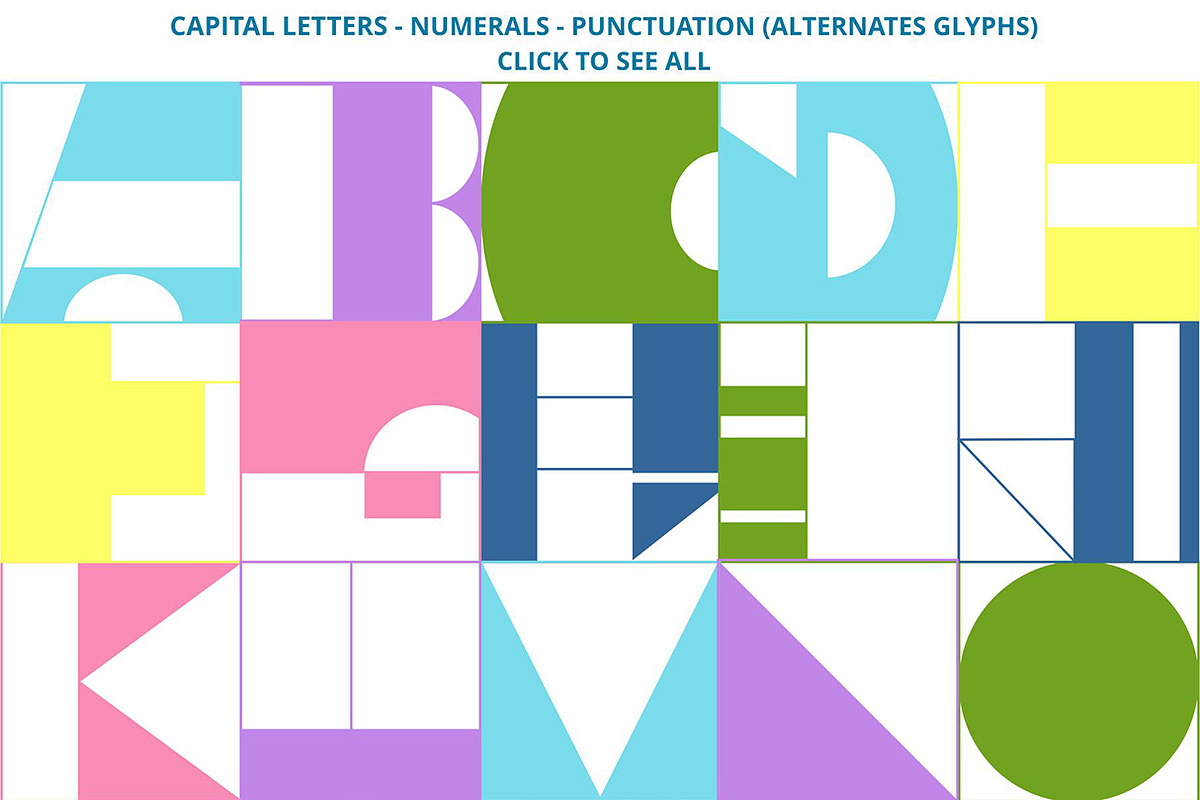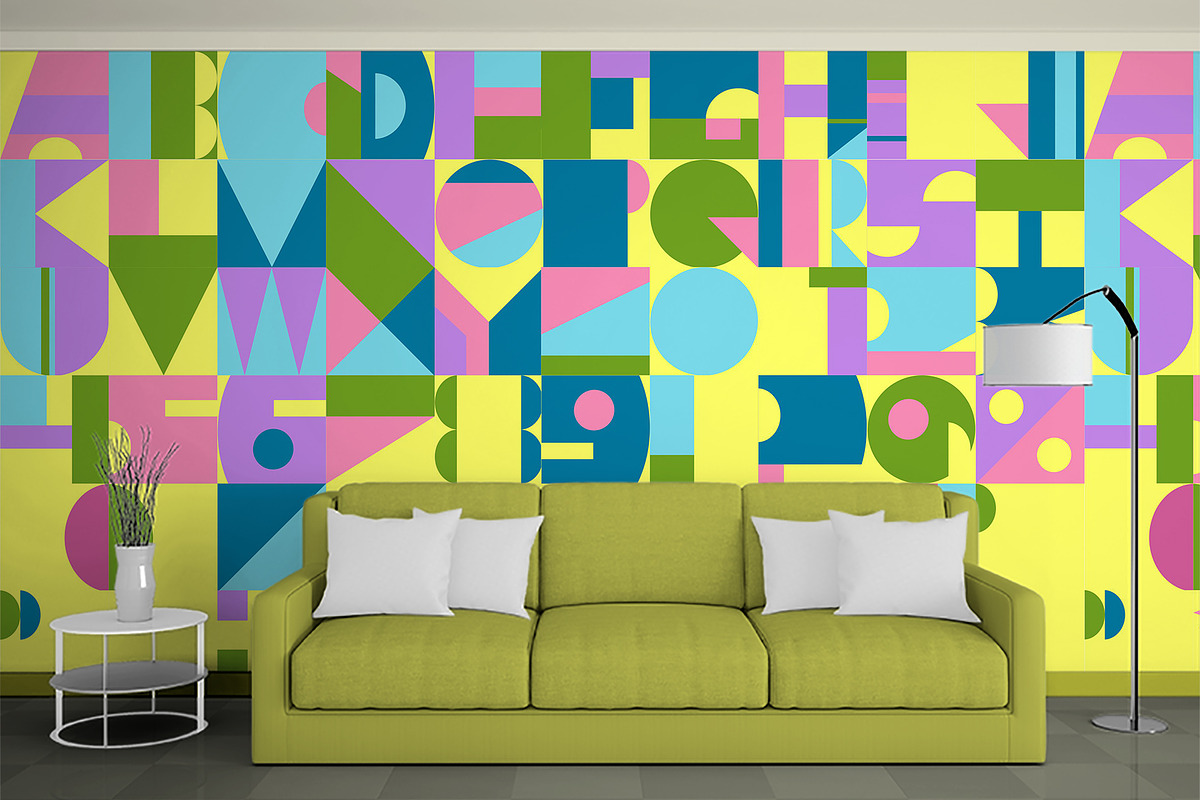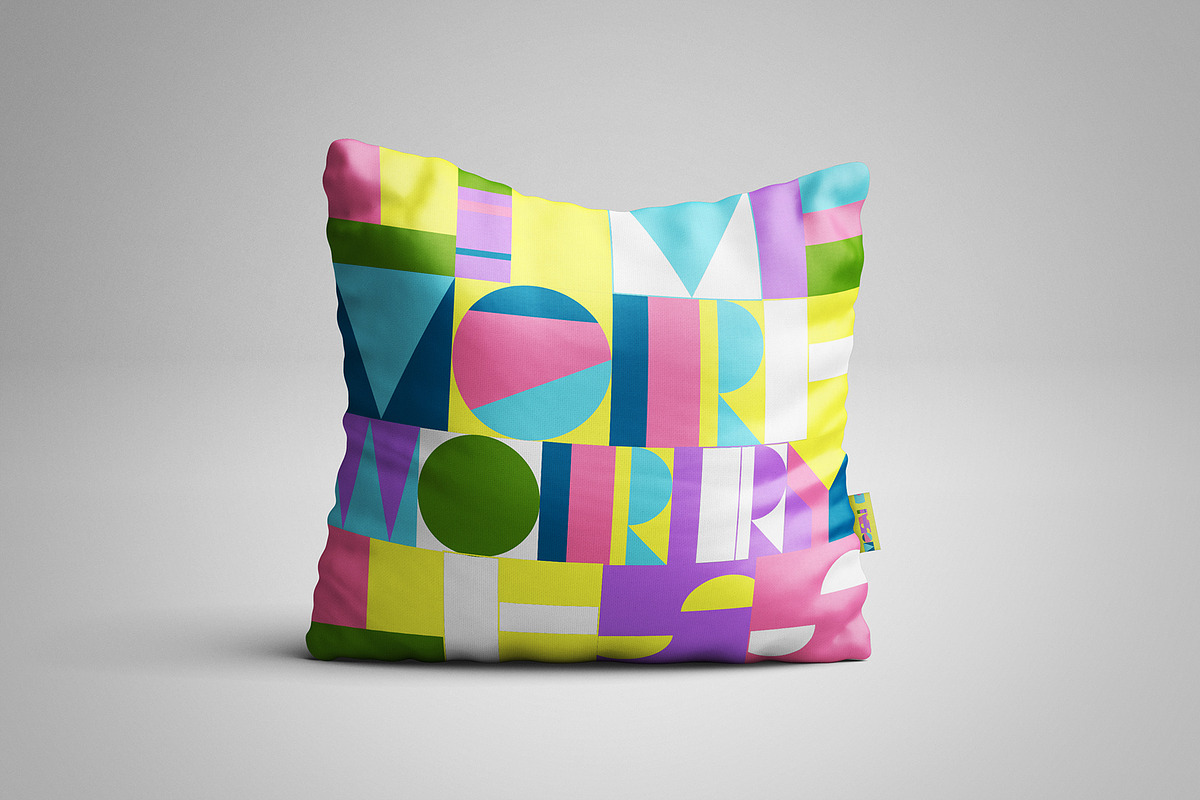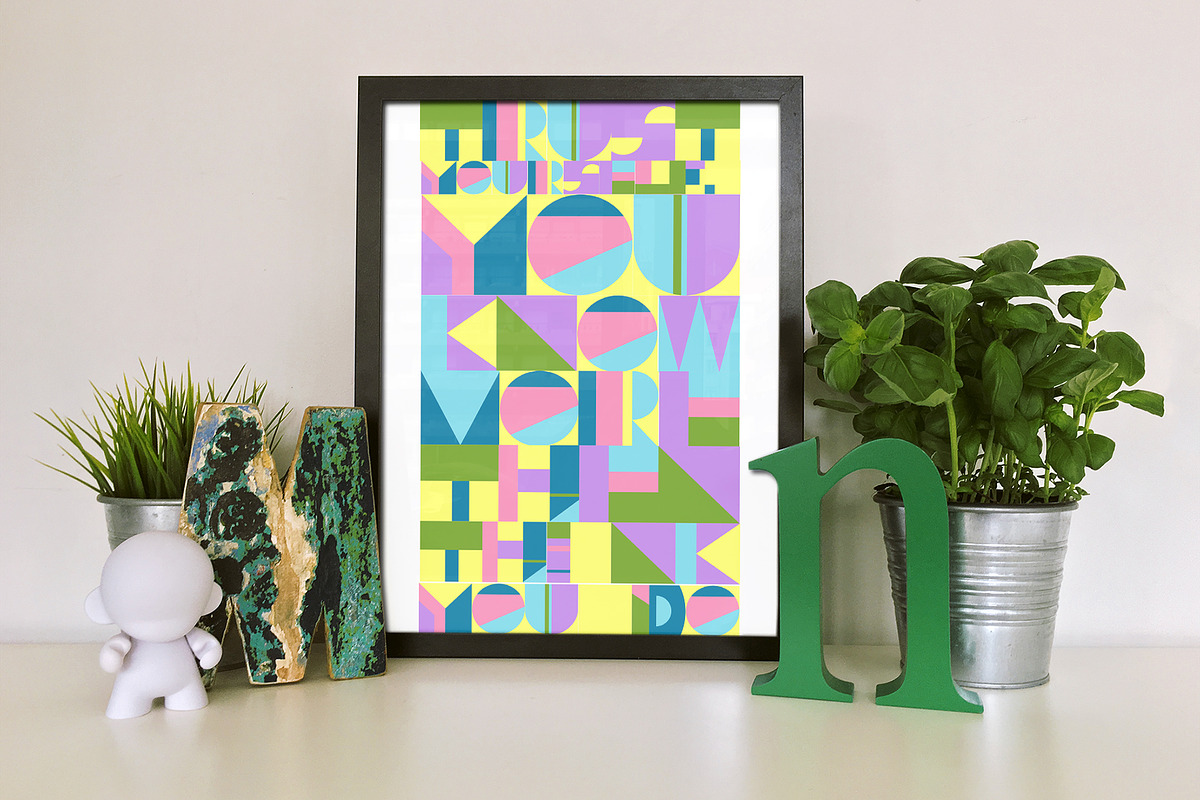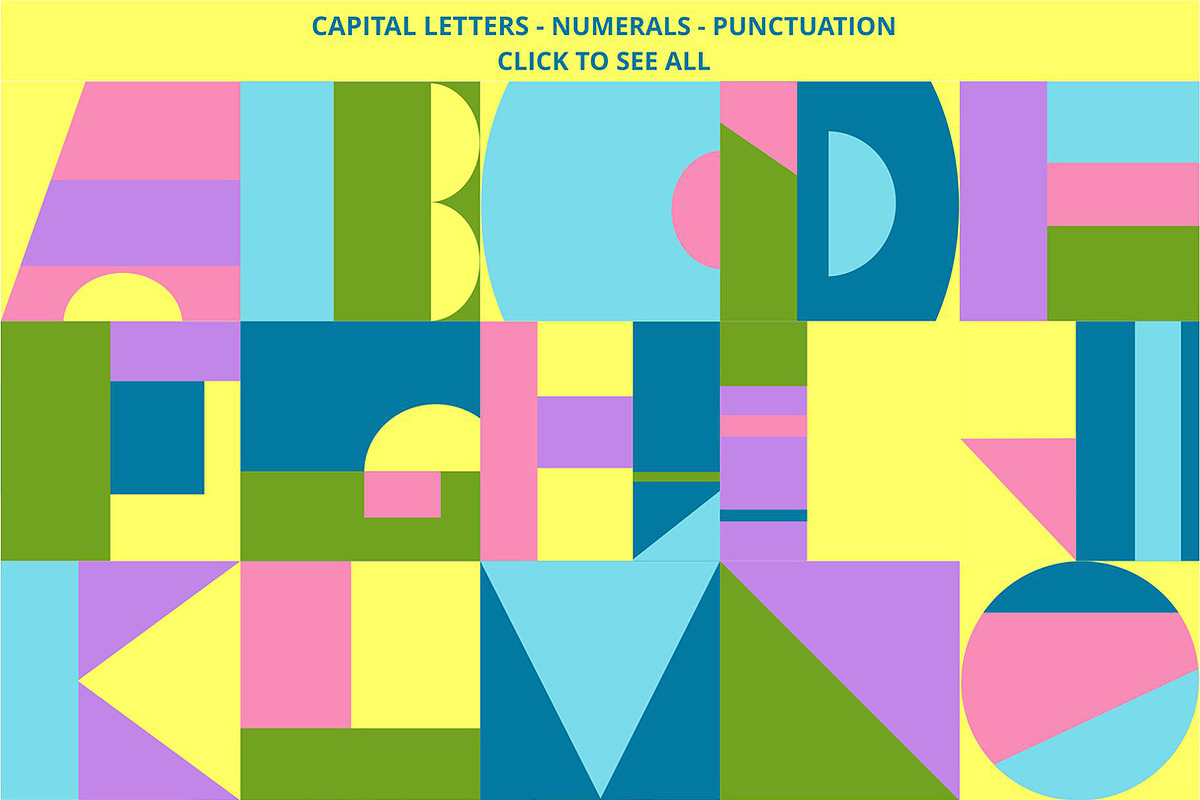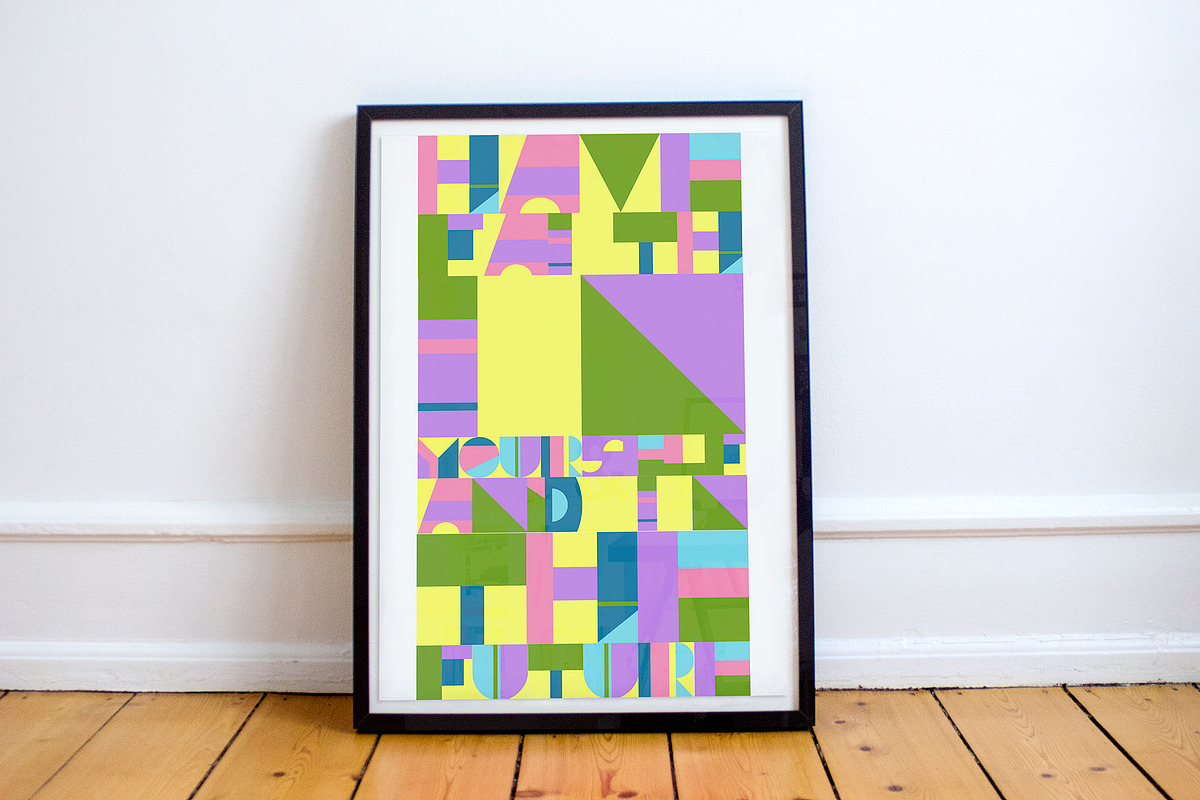
MOSAIC color font
I'm happy to present you my new fun color OpenType-SVG font – MOSAIC with Latin letters and alternates glyphs! Сhildren's blocks and puzzles inspired me to create this font. MOSAIC font contains 2 versions of each glyph standart version (OTF, TTF WOFF). This font work nicely for all sorts of things including t-shirt design, typographic art, social media images and so much more!
Font features: Standard characters A-Z, 0-9,and punctuation + alternates glyphs + classic versionfor the Latin Basic and Western European set.